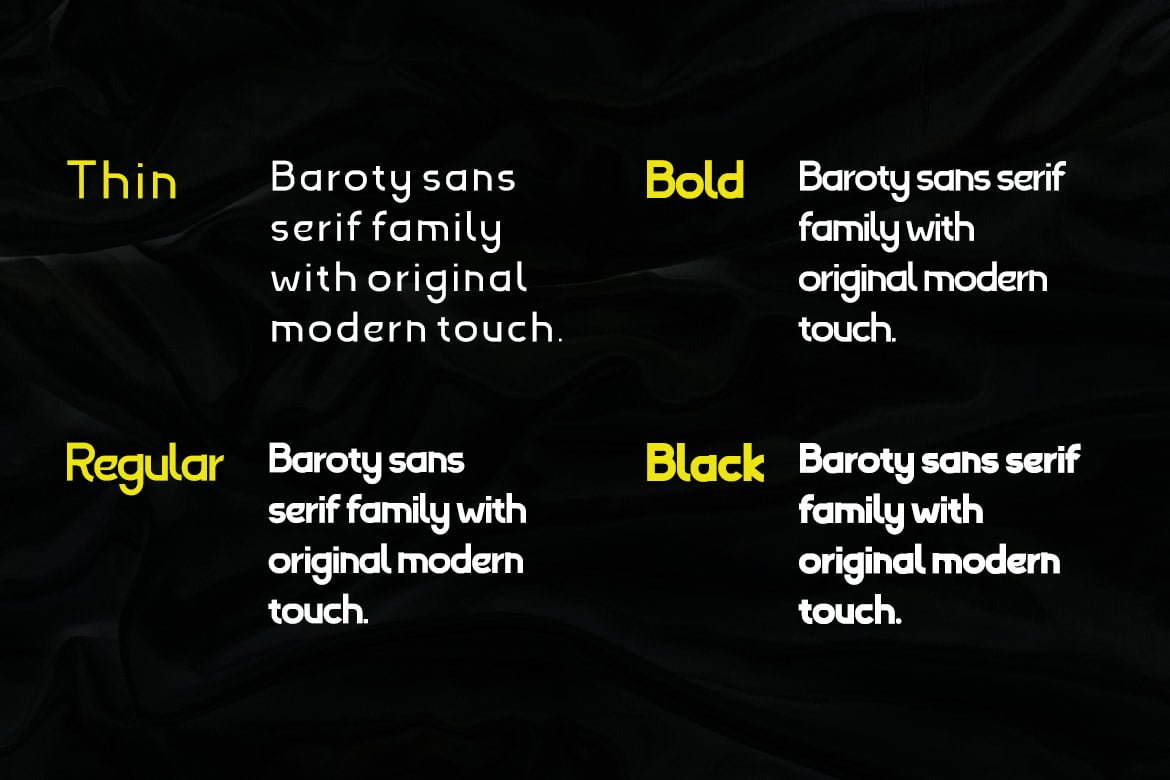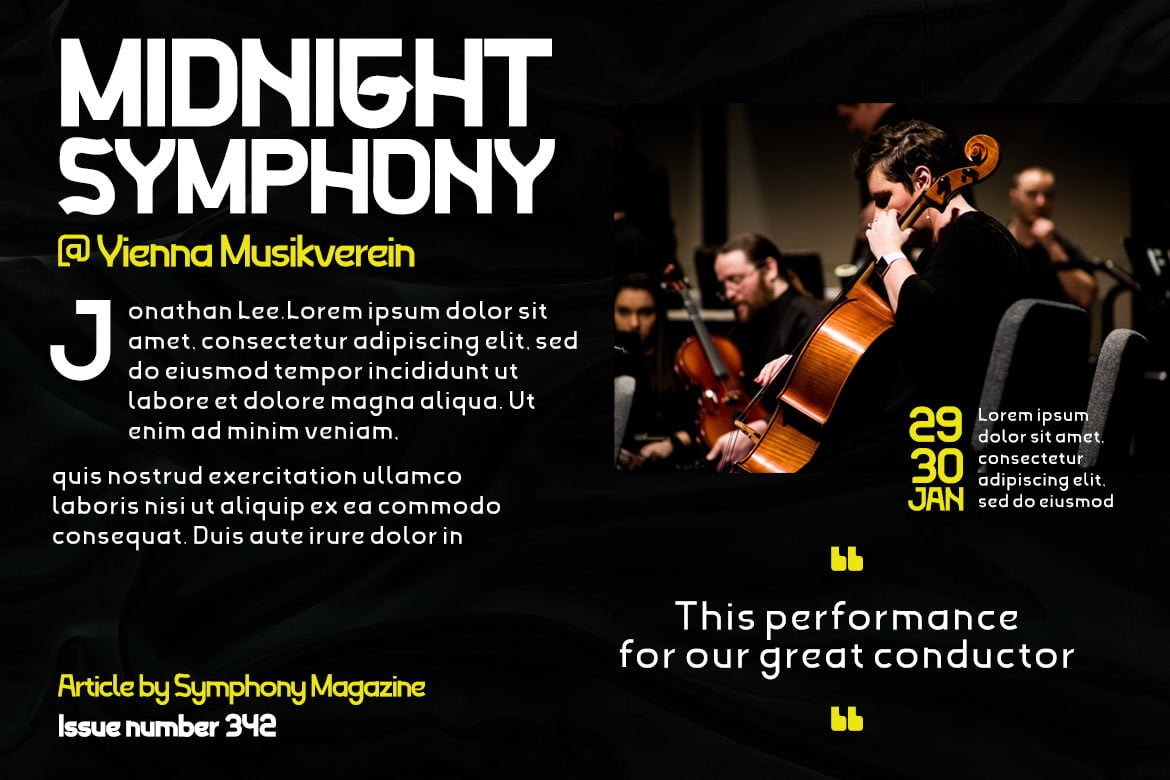
Baroty
Baroty is a modern sans serif font that we made with great care to make your project beautiful and perfect, to make your project look unique and different from the rest. By using this typeface, you may anesthetize the entire audience, allowing them to remember your project easily and firmly.
• Fonts include multilingual support, and Family; Thin, Regular, Bold, Black